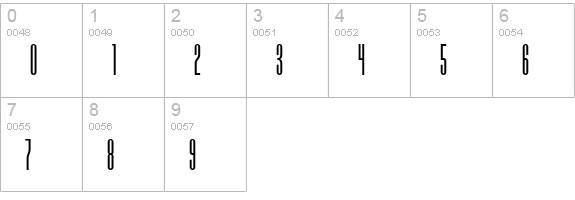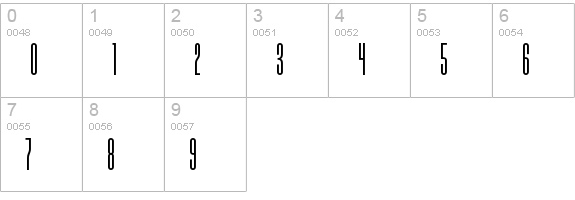
Dome Text font is a modern and stylish typeface that combines elegance with readability. Its sleek lines and sharp edges make it perfect for a wide range of design projects, from branding to editorial. The unique geometric shapes of Dome Text font give it a contemporary and sophisticated look that will make your text stand out. Best of all, Dome Text font is completely free to download at FontsMarket.com. This means you can add this stunning font to your collection without any cost, making it a fantastic choice for designers on a budget. Whether you're working on a website, poster, or logo, Dome Text font will bring a touch of class to your designs. Download it today and elevate your projects with this beautiful and versatile typeface.